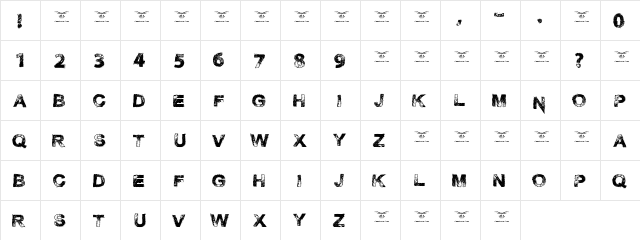
Necrotype Regular
| Foundry | Fonts by GKDN |
| Designer | Chris Vile |
Design Context for Necrotype Typeface
Necrotype is a composed and adaptable typeface that performs quietly and consistently across a wide range of design contexts.